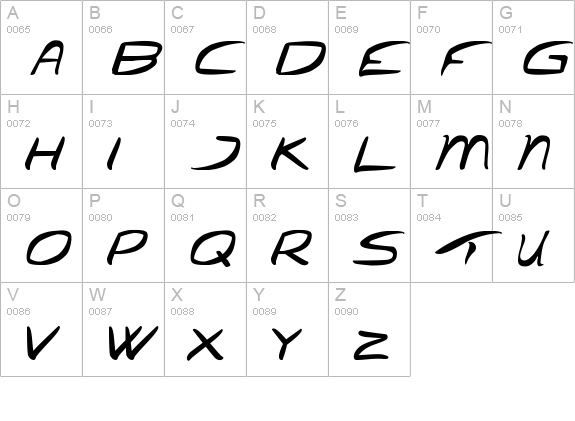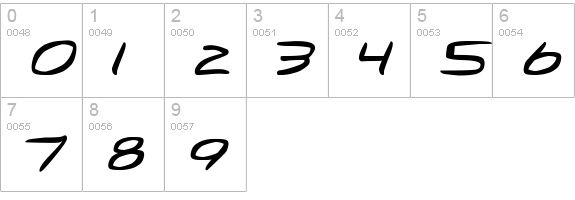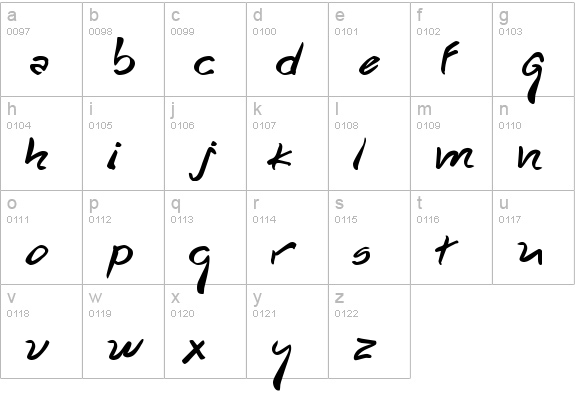
Turkiye font is a beautifully crafted typeface that captures the essence of Turkish culture and tradition. With its elegant curves and intricate details, this font is perfect for adding a touch of sophistication to any design project. What sets Turkiye font apart is that it is not only visually stunning, but it is also free to download. That's right, you can bring the beauty of Turkish calligraphy to your designs without spending a dime. Whether you're working on a logo, website, or any other creative endeavor, Turkiye font will undoubtedly make a lasting impression. To get your hands on this remarkable font, simply head over to FontsMarket.com. There, you will find a wide range of fonts, including Turkiye font, all available for free download. FontsMarket.com is a trusted source for high-quality fonts, and they make it incredibly easy to find and access the fonts you need. So why wait? Elevate your designs with the timeless elegance of Turkiye font. Download it for free today at FontsMarket.com and let your creativity soar.